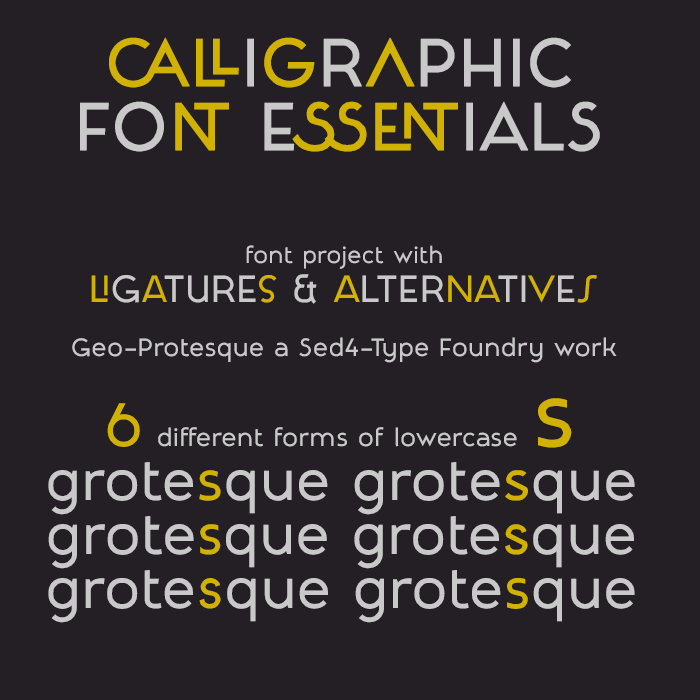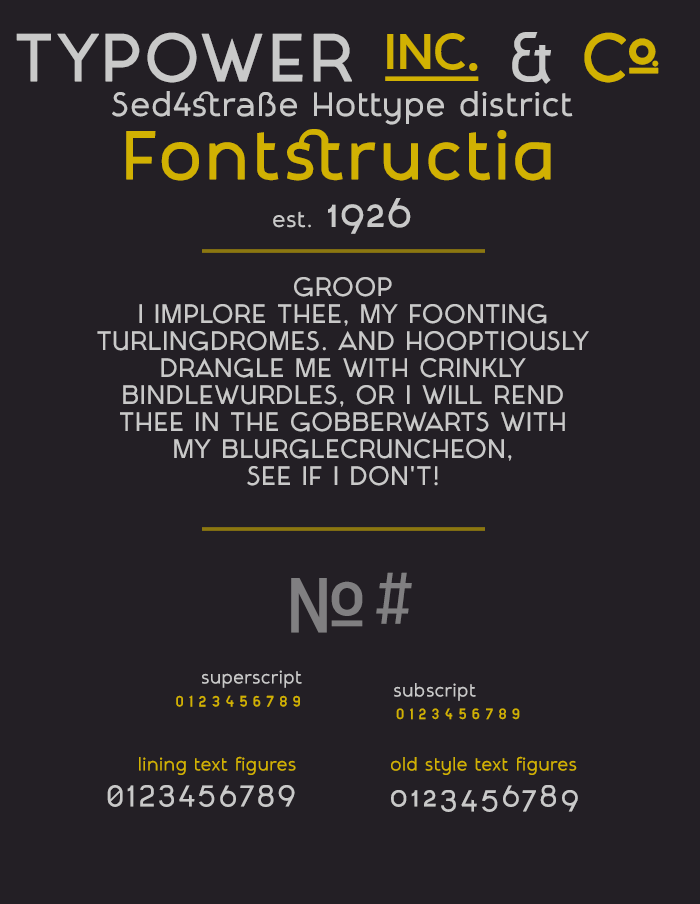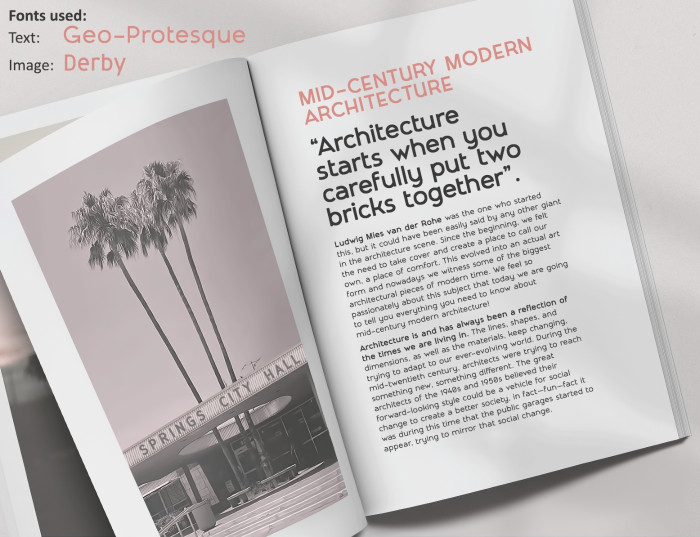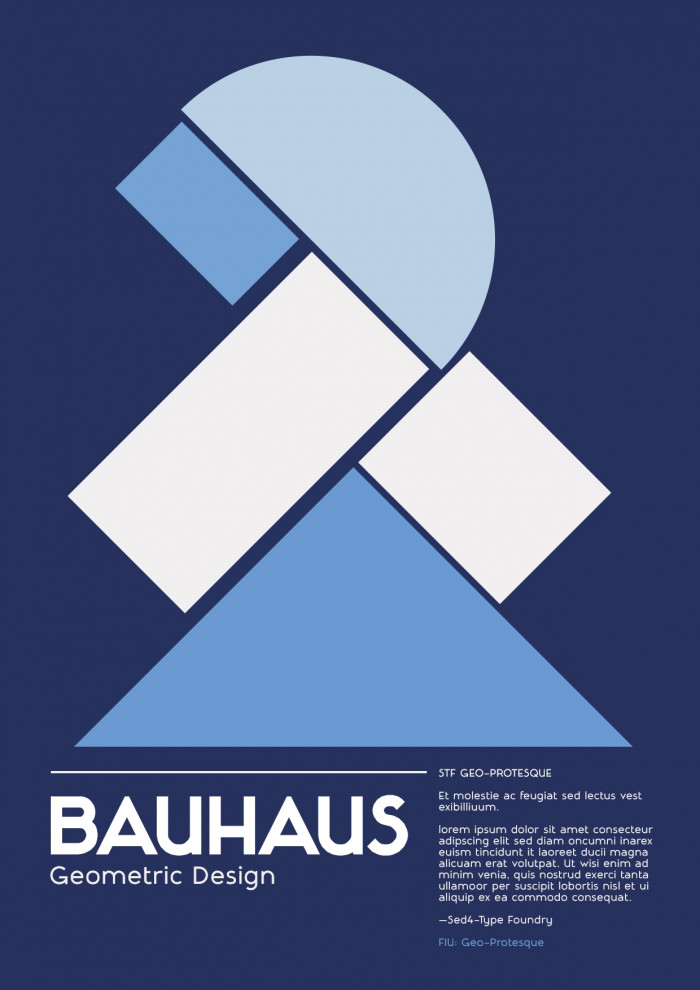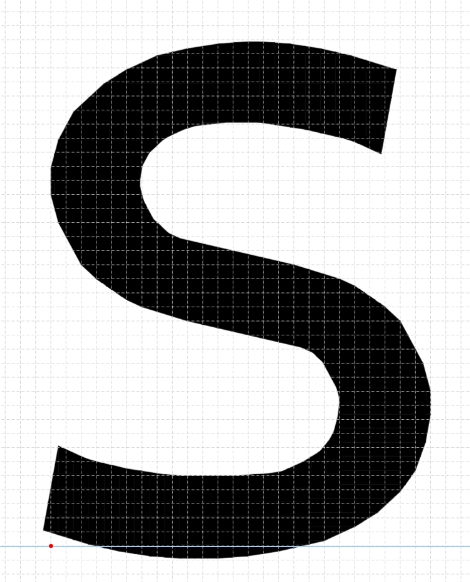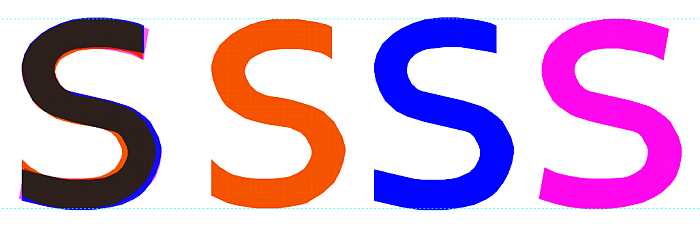
GEO-PROTESQUE - Geometric grotesque typeface
This time I did an attempt at making a typical super rounded geometric gothic grotesque "workhorse" typeface. A sans serif style that is a very popular for headline and display text.
The idea for "Geo-Protesque" was to make a sans serif style that is strongly inspired by the pre- "International Typographic Style" -era. To dive deeper into a more decorative period of hand-lettering, pioneered mostly by architects and painters.
The most important difference as oposed to today's more traditional type design, is that during tose early days of the Modernism movement lettering usually was purpose made. Each letter had a unique role within a composition, making Lettering that was meant to be used in a unique configuration. These designs occasionally didn't even had full alphabets designed. And even more rarely getting manufactured and cast into full printing typefaces.
It was mainly inspired by those sans serifs seen in vintage sign paintings and show cards designs that often were more decorative artistic takes on the general basic stylistic concept of sans-serifs, or lettering in general.
Although Geo-Protesque is essentially more of a contemporary looking design, I tried to incorporate some of that playfullness that came with these "free-form" sans serifs.
On the other hand this design sticks well within those realms where it remains faithful to simple geometric form. This created almost quirky looking letterwidth distribution in the upper set, and set somewhat of a funky rhythm. This gives the font a very strong early 1900's feel.
The lower case set has a much more uniform design that works well in a piece of body-copy text.
To pull this design off properly the font was created on a large grid using the 'faux'-Bézier approach. The rest just enfolded from there on out.
The design, (obviously) a very geometric grotesque, has some nice neo-grotesque features to it as well.
While many letters mostly have even stroke width, upclose you'll notice some stroke width variation is going on after all. This to bring more contrast into certain area's. Anther design feature is the font's generous and open letter-spacing.
The font is optimized for body copy in both digital and print use. Even at very small point sizes. In digital-display rendering it performs crisp even as low as 9pts. (Not bad I guess!)
Keep in mind that due to the nature in which 'faux'-Bézier curve fitting works this font might not be the best choice for a large size rendering. The linear interpolation method uses linear polynomials (straight lines) to construct glyph contours.
Beware that when using this font at very large point size rendering the remnants of this process will become visible!
Eye-catching and simply beautiful, especially the "&"
Another great work here, with lots of extra characters. As usual, you're in for very much adjusts of kerning with this... and I'd like you to take a look at the letter J when it comes after other capitals. Still looking at this pretty glyphs.
Very polished and professional looking 10/10
It's been a while since I last worked this font.. Today I have included many new kerning pairs to the font. 5160 kern-pairs in total ATM.
Frodo7's quest for improving his letter S had me wonder how far I could get one of my own in an effort to achieve best possible result.
The one to the right (in magenta) is the final version.
I undedrstand that S and s are the most challenging letters when using tool based on bricks and you already made 6 alternatives earlier, but when I consider the whole font, the new one, while it is the most pretty iteration, to me it somehow does not fit the rest of the set, where almost all loose ends of rounded letters are cut perpendicular to the local curvature (examples S, C, e, g, 5, ?). Would not geometrically most fitting form be the bottom left of those 6 in example image, (maybe little more open, with the imaginary ending guides still being connected close to center inflex point)? Please take this more like a question than a suggestion.
As was described above the idea for this was to dive deeper into a PRE-"International Typographic Style"-era of non-mechanical printing, typically done using one or more of several planographic printing techniques. Lithography was one of them that became more widely used during the mid/late 1800s for printing posters and sheet music cover illustrations. Music publishers had drawn the connection that the marketability of sheet music was directly related to the quality and artistic input of the covers. To make illustrative sheet music cover arts influenced by the story of the music. During these early stages the craft was pioneered mostly by painters, lithographers and architects. It would be the "Art Nouveau" movement that would then take the poster design world by storm and truly popularised it.
Important early pioneering illustrators were "Jules Chéret" (the father of the modern poster), "Eugène Grasset" and many others. Jules Chéret in particular would play a significant role in this. He produced a wide variety of very popular posters and turned the "advertising poster" into the art form we know today. Commonly known for his advertising posters commissioned by French-born British perfume and consumer cosmetics maker "Eugene Rimmel". Rimmel funded Chéret to open the first color lithography shop in Paris. Eugene experimented with different techniques and materials, first working in two colors, then 1869 advancing to three colors, black, red and combination color.
Perhaps this gonna need another round,
Best shape I think has the $ :-)
To the current s form, compare the two highlighted areas. Maybe it is just illusion, but I think the bottom inner radius could be made little smoother in the way the upper is.